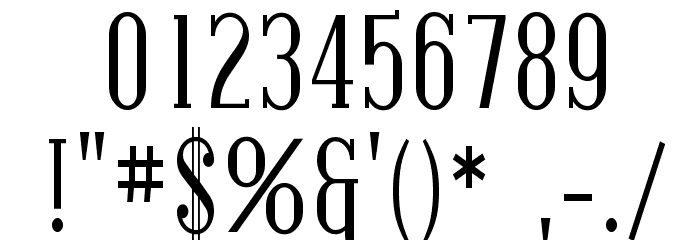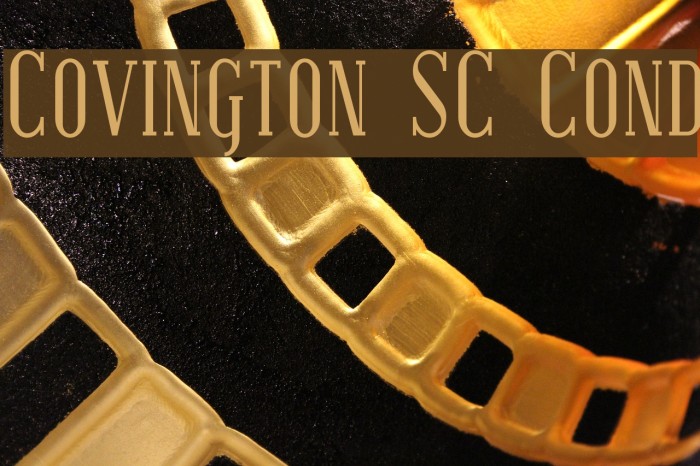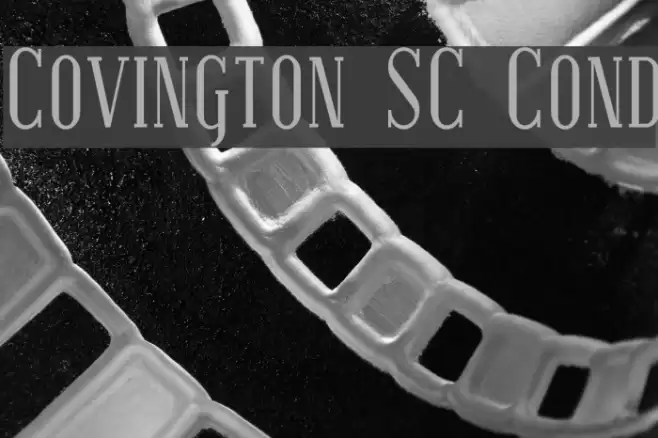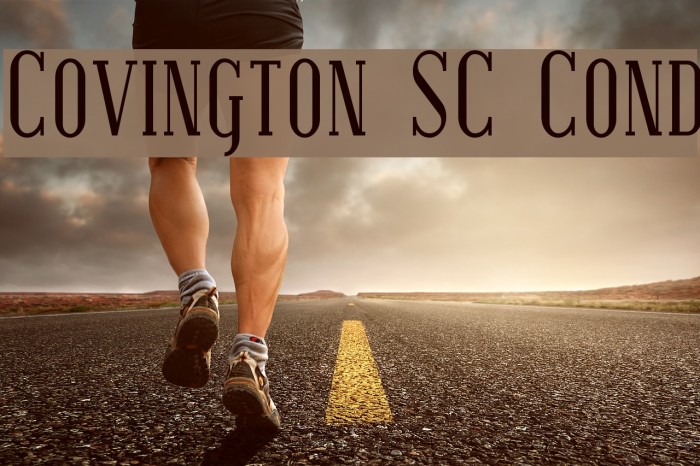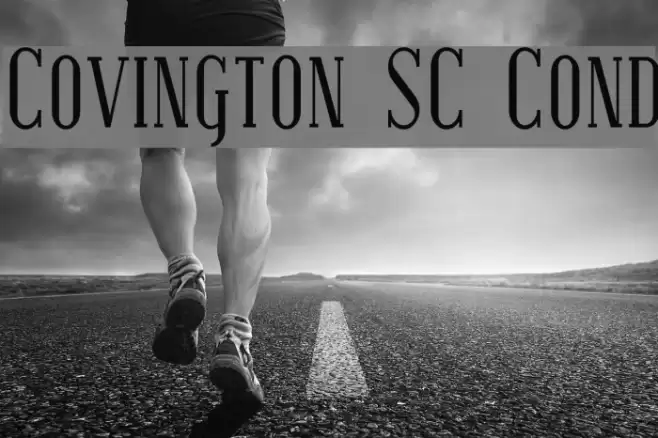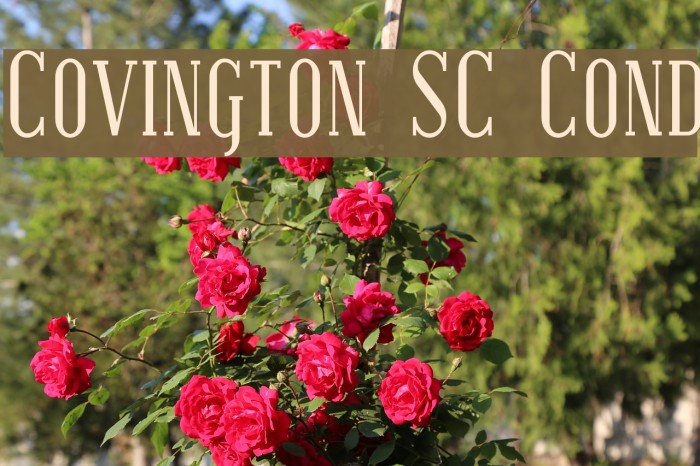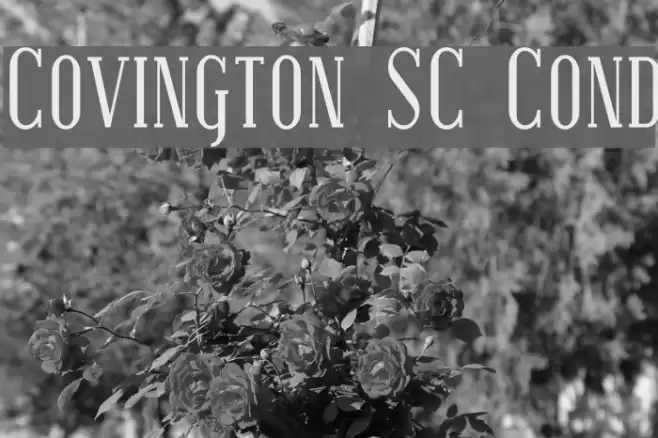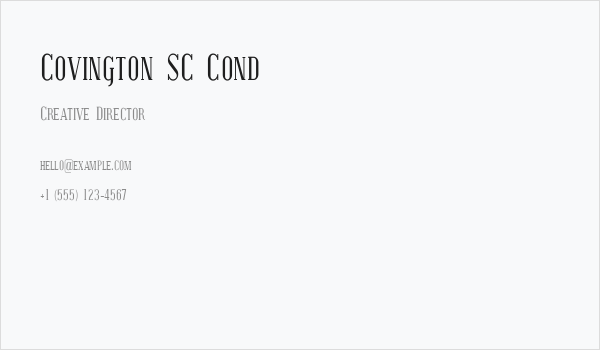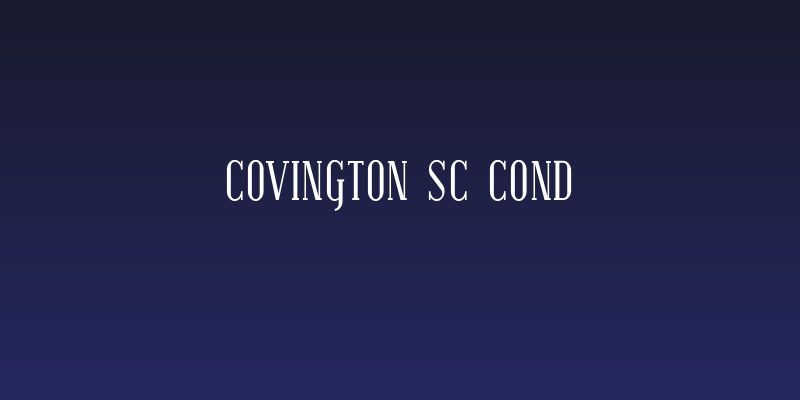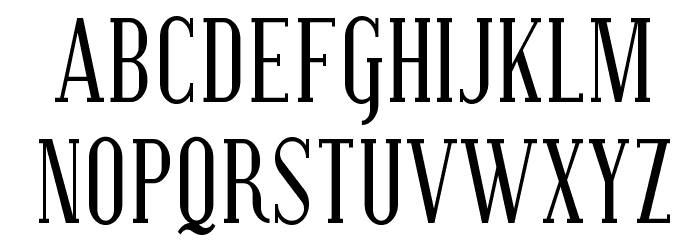
Covington SC Cond Font
Covington SC Cond Description
This font features a classic serif style with elongated, narrow characters that convey a sense of elegance and sophistication. The uppercase letters are tall and slender, with sharp serifs that add a touch of formality. The lowercase letters maintain the same narrow proportions, creating a cohesive and unified appearance. The numerals are consistent with the overall design, offering a clear and readable format. Special characters are well-integrated, maintaining the font's refined aesthetic. The font's condensed width makes it ideal for situations where space is limited but style cannot be compromised.
| Proposed Projects | Ideal for editorial design, book covers, formal invitations, and branding projects that require a touch of sophistication. |